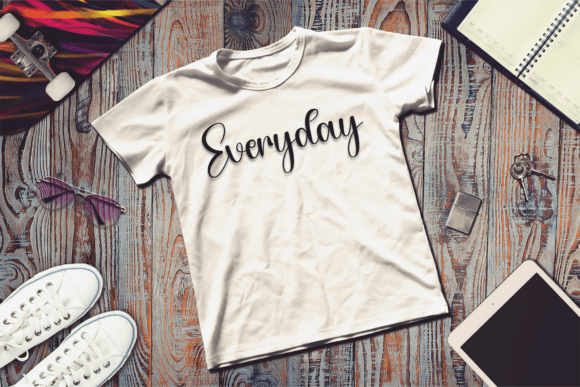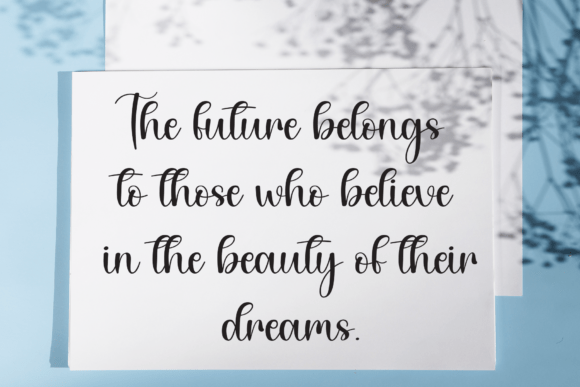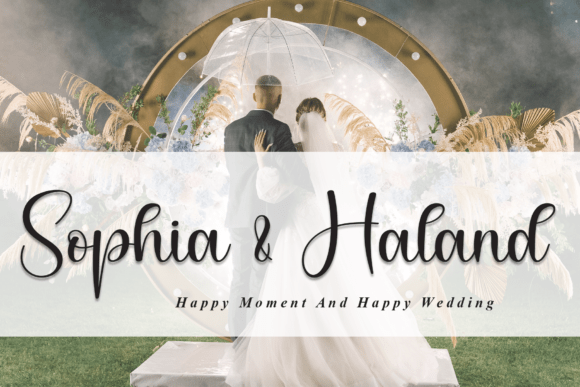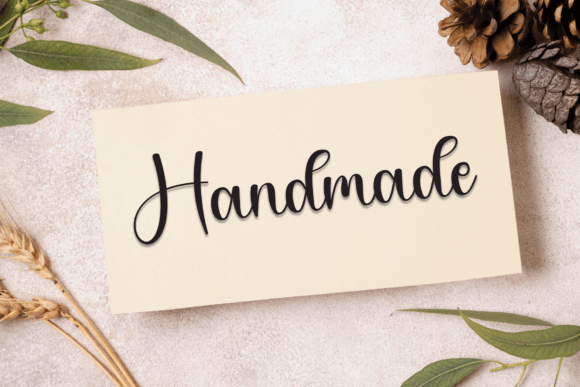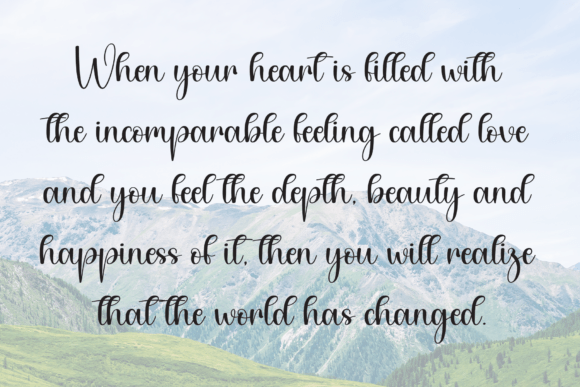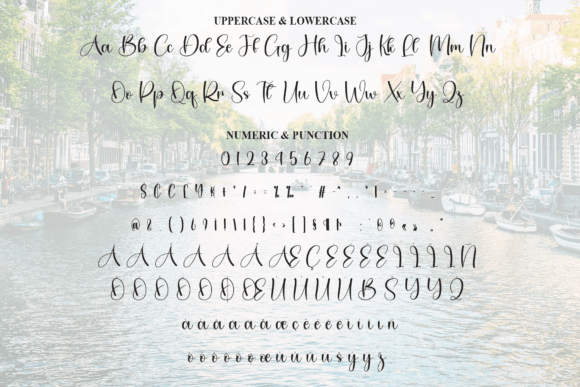
The Perfect Script: Unleashing the Beauty of the Amsterdam Font
Have you ever stumbled upon a beautiful handwritten font that instantly sparks inspiration? For designers, those moments of creative discovery can be a game-changer. For me, it was the first time I laid eyes on the Amsterdam Font. Its elegant strokes and delicate curves had me hooked from the very start.
The Amsterdam Font is a versatile and sophisticated handwritten script font designed to add a touch of refinement to any project. Whether you’re working on a wedding invitation, branding, or packaging, this font is sure to make your designs stand out. Its modern elegance and natural flow make it perfect for fashion, beauty, and lifestyle designs that require a personal and charming touch.
As a designer, the Amsterdam Font is a valuable addition to your toolkit. Its unique style and versatility make it a go-to choice for any project that needs a sophisticated and elegant look.
Amsterdam Font Key Features
- Unique Characteristics: Amsterdam Font features a unique, cursive script style with a mix of modern and traditional elements, making it perfect for creative and artistic applications.
Amsterdam Font Review
I’ve had the chance to work with the Amsterdam Font, and I must say it’s a unique and charming addition to any design project. ✨ The font’s distinctive flair, with its mix of modern and traditional elements, makes it perfect for creating a sense of nostalgia and elegance. ✨ Its high x-height and generous letter spacing give it a friendly, approachable feel that’s perfect for body text.
One of the things that stands out about the Amsterdam Font is its excellent legibility. ✨ Whether you’re using it for large display headings or smaller body text, the font is clear and easy to read. ✨ Additionally, the font’s versatility makes it suitable for a wide range of design applications, from branding and advertising to editorial and digital media.
Overall, I’m impressed with the Amsterdam Font’s unique character and versatility. While it may have some limitations, it’s a great choice for designers looking to add a touch of elegance and sophistication to their work.
Tips for Getting the Most Out of the Amsterdam Font
Use the Amsterdam Font for headings and titles to add a touch of sophistication to your designs.
Pair the Amsterdam Font with other elegant fonts to create a cohesive look.
Use the Amsterdam Font for:
- Book covers and magazine layouts
Alternatives to Amsterdam Font
Open Sans is a popular sans-serif font that is highly legible and versatile. It is suitable for a wide range of applications, from body text to headlines. Open Sans is a great choice when you need a clean and modern look, but it lacks the unique, hand-drawn feel of Amsterdam Font.
Lato is a sans-serif font that is known for its elegant and sophisticated look. It is a great choice for projects that require a high-end, premium feel. Lato is more geometric and structured than Amsterdam Font, making it suitable for applications where precision is key.
Montserrat is a sans-serif font that is inspired by the urban environment of Buenos Aires. It is a great choice for projects that require a bold and edgy look. Montserrat is more condensed than Amsterdam Font, making it suitable for applications where space is limited.